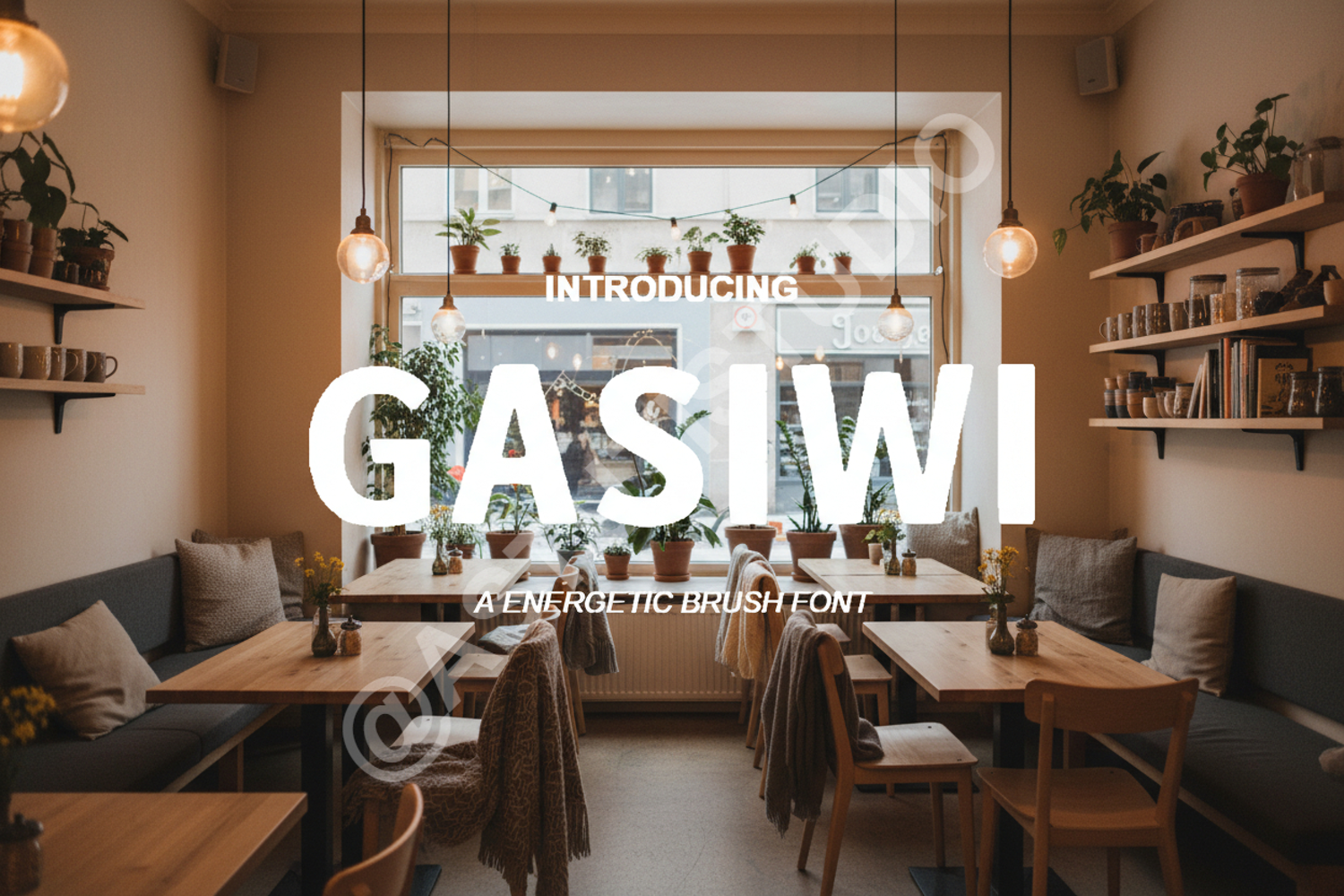
Gasiwi - Modern Elegant Serif Typeface
Gasiwi
Experience the perfect blend of sophistication and contemporary design with Gasiwi. This premium serif font is meticulously crafted to bring a touch of luxury and timeless elegance to your creative projects. Whether you are aiming for a high-end fashion aesthetic or a clean professional look, Gasiwi offers the versatility and refinement required for world-class design.
- Full set of uppercase and lowercase letters
- Numbers, punctuation, and multilingual character support
- Elegant ligatures and stylistic alternates for custom flourishes
- High-End Branding: Perfect for logos, brand identities, and luxury packaging.
- Wedding Stationery: Create stunning invitations, menus, and place cards with a romantic touch.
- Editorial Design: Ideal for magazine headers, book covers, and sophisticated layouts.
- Digital Marketing: Elevate your social media graphics, website headers, and promotional banners.
- Photography Watermarks: Add a professional and artistic signature to your portfolio.